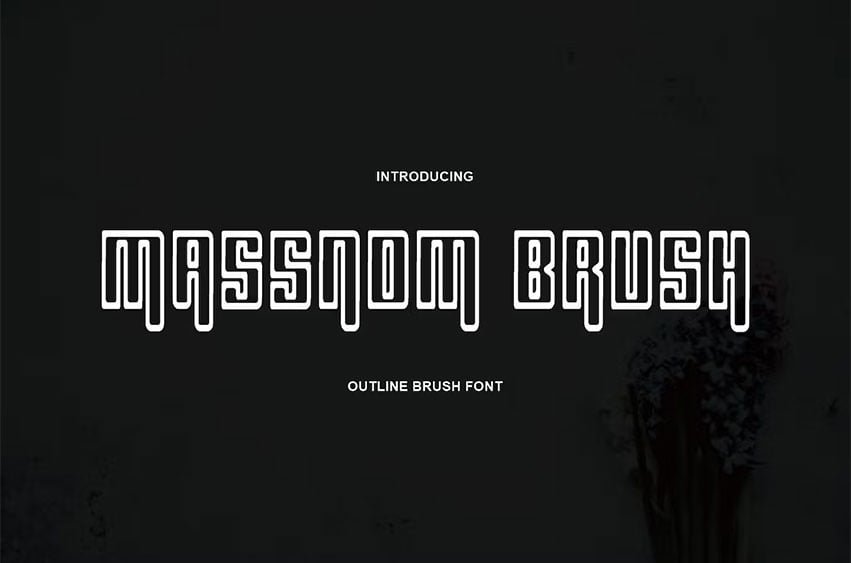
Massnom Brush Font Introducing our new product Massnom Brush Font, Modern Font. Massnom Brush Font – Massnom Brush Font is an elegant and authentic display font.